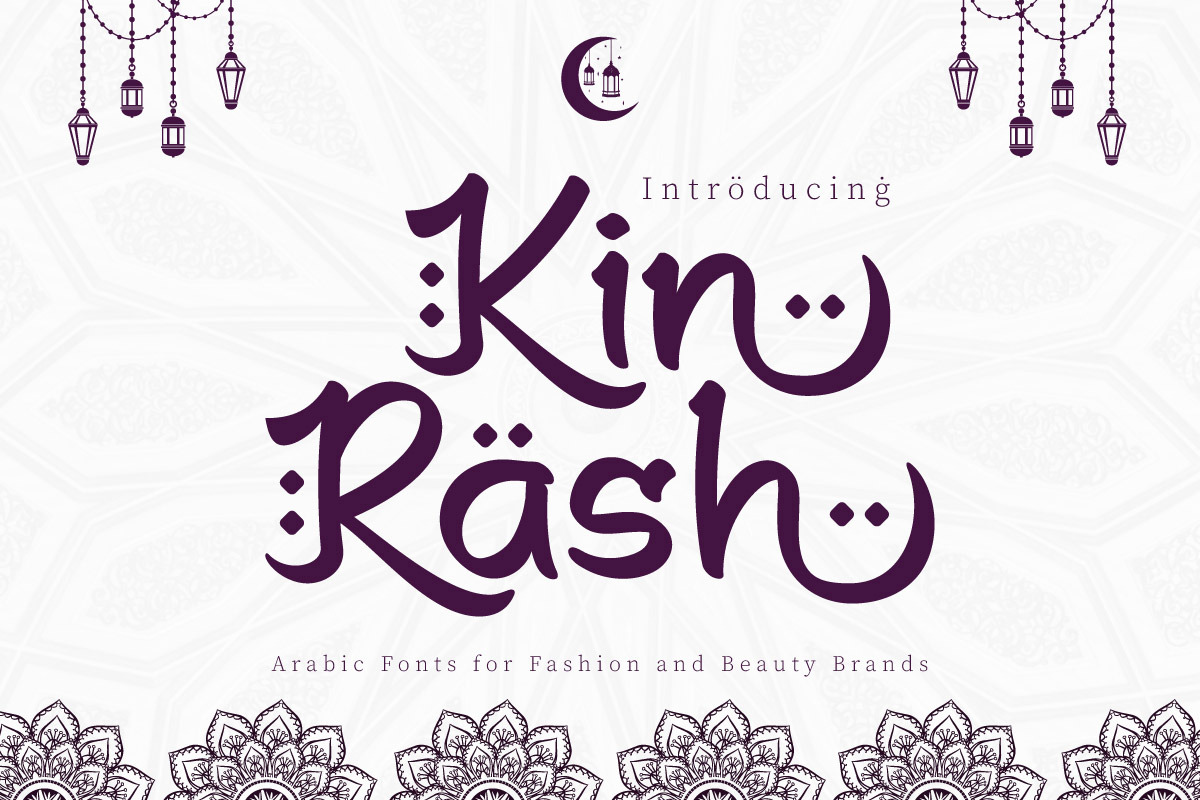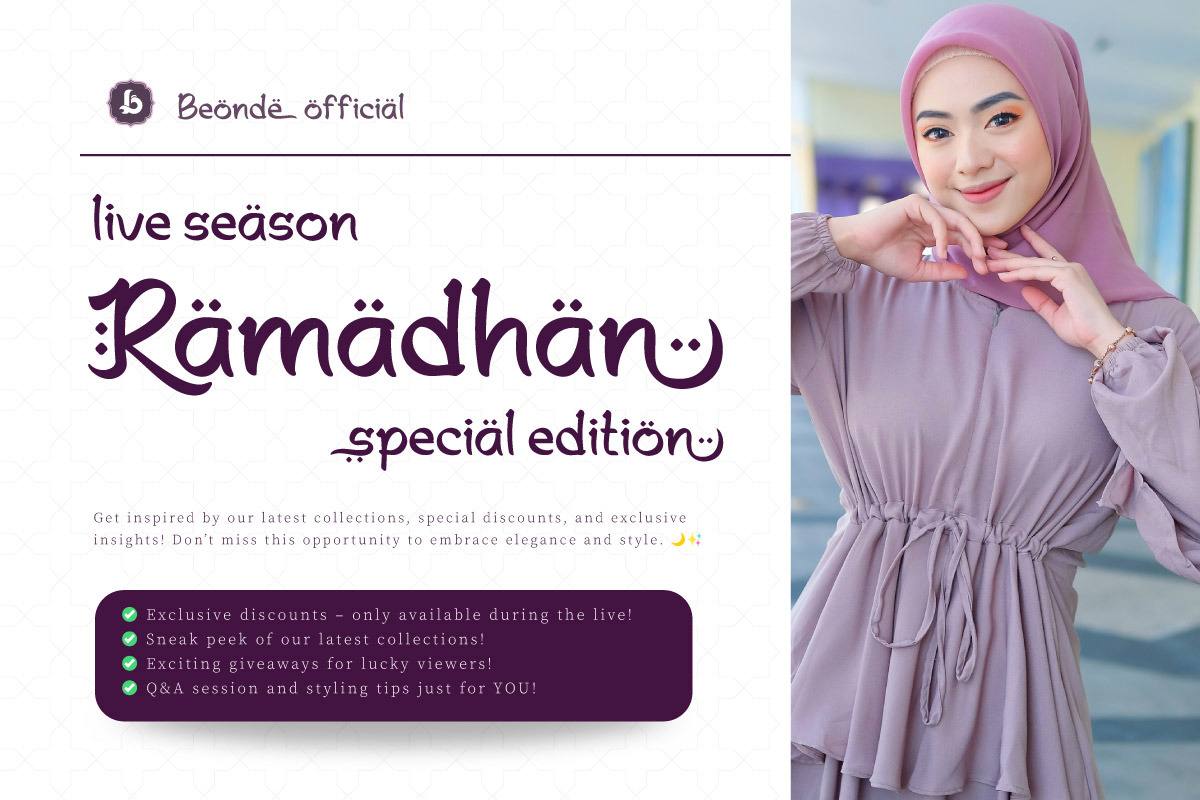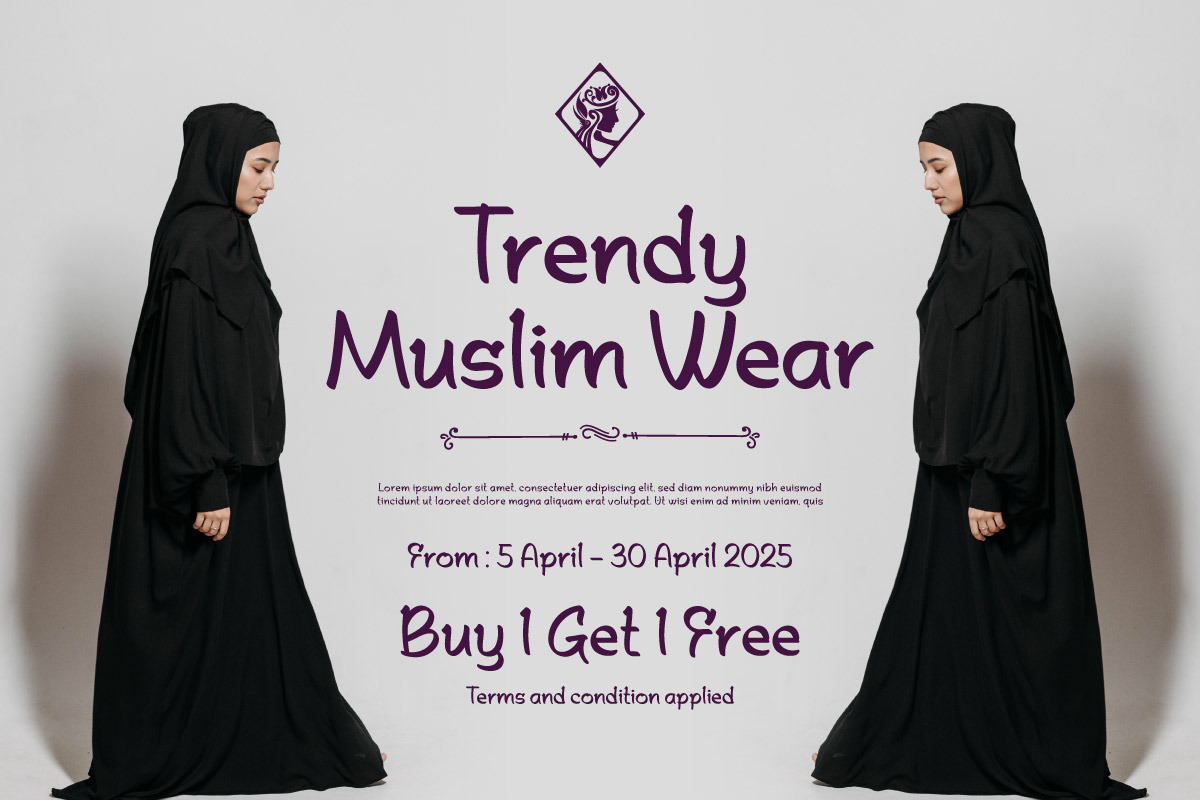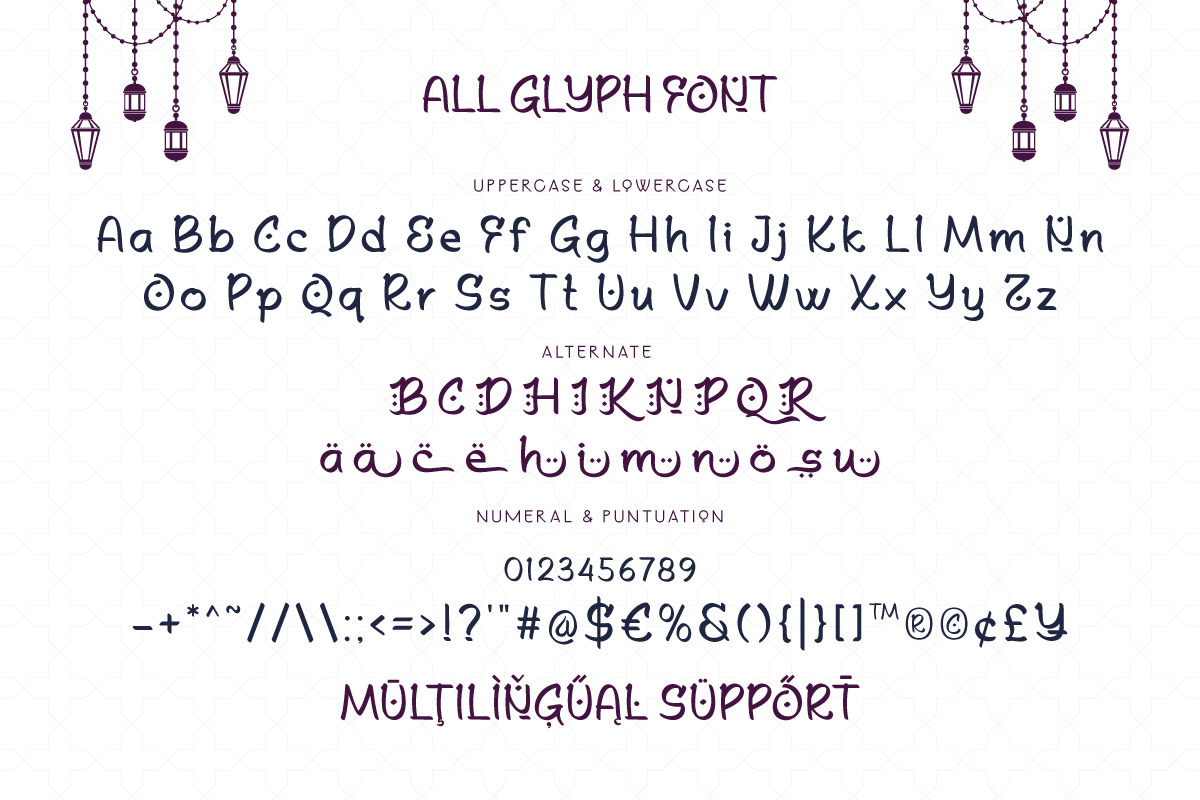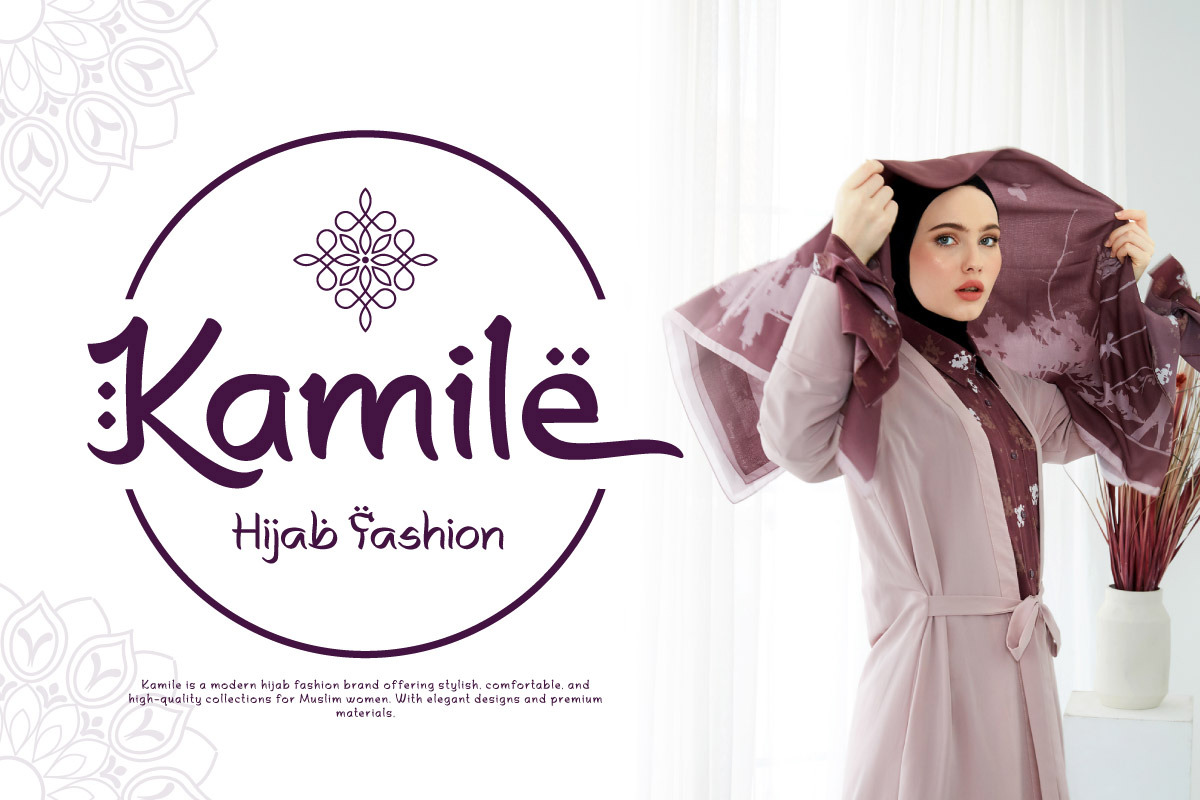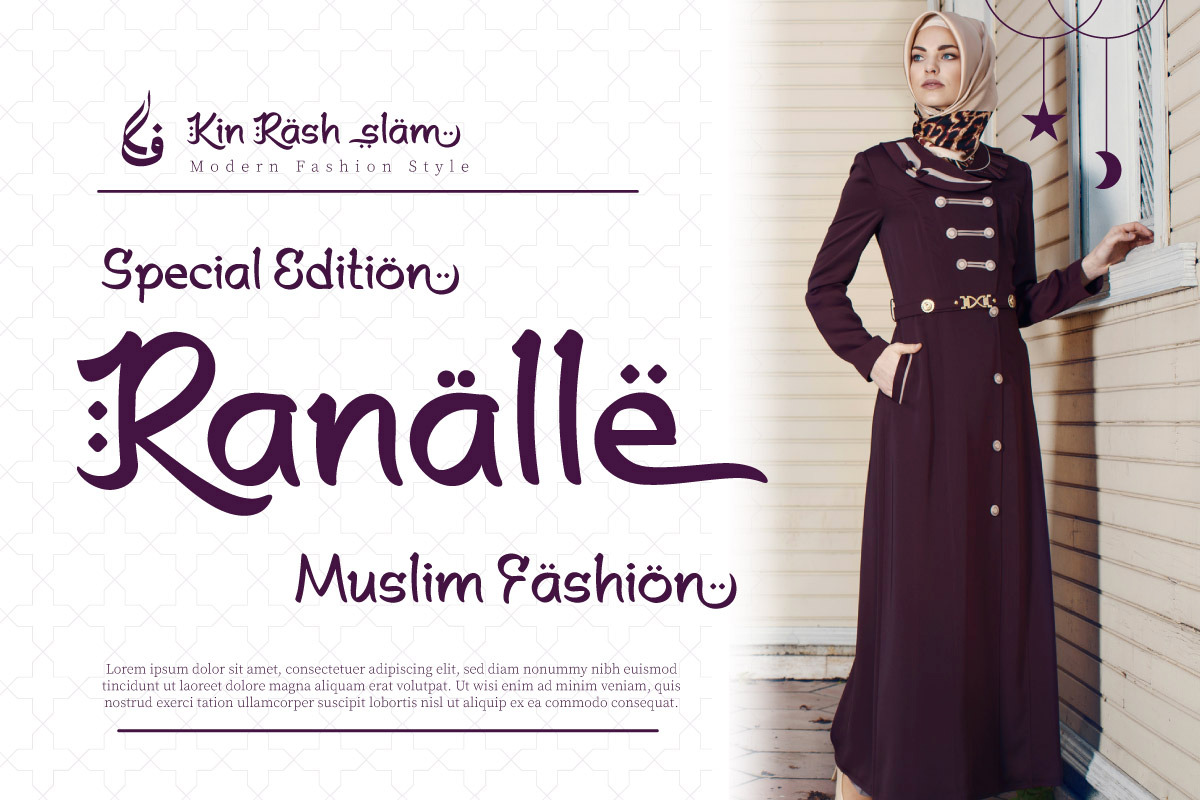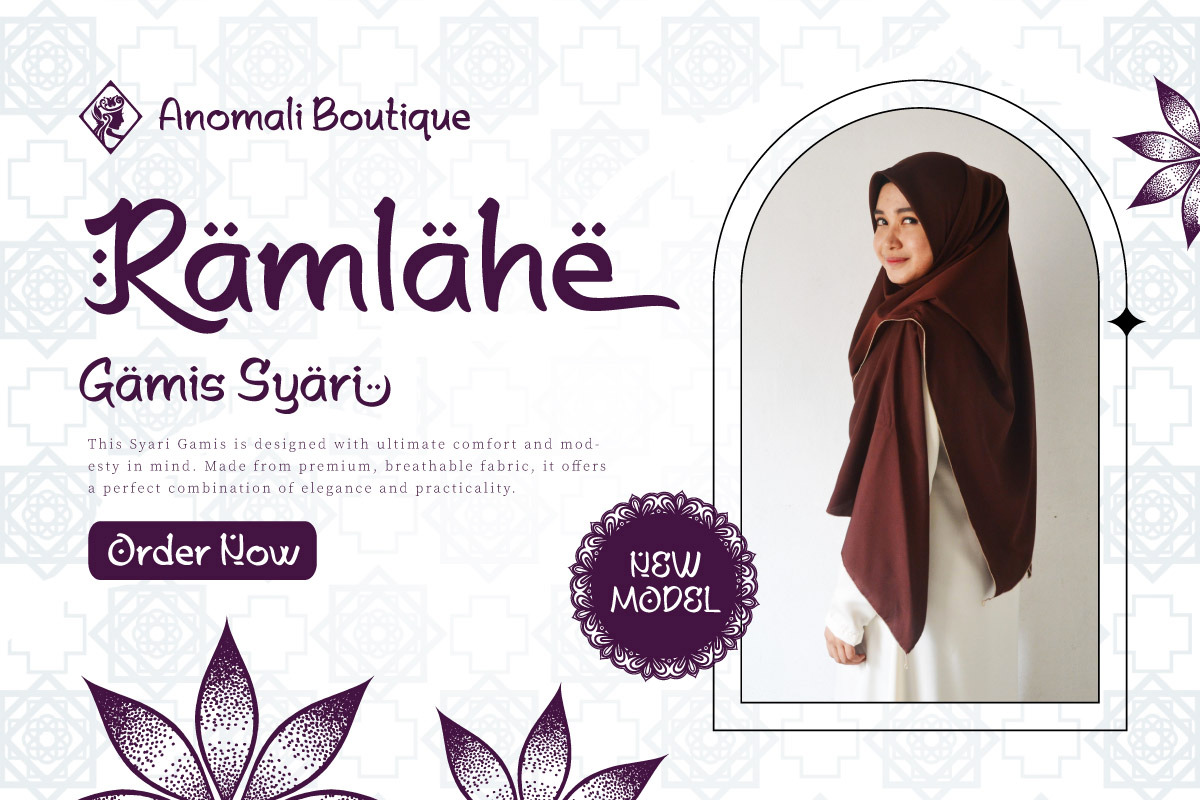
Kin Rash - Arabic Font for Fashion
Kin Rash - Arabic Font for Fashion and Beauty Brands is an elegant and sophisticated typeface, created to blend traditional Arabic calligraphy with modern design aesthetics. Perfect for fashion labels, beauty products, and high-end brands, Kin Rash adds a touch of cultural richness and contemporary style. Its graceful curves and subtle details make it ideal for projects that want to convey luxury, elegance, and authenticity.
Elevate your fashion and beauty designs with Kin Rash and create a lasting impression with its unique Arabic-inspired charm.